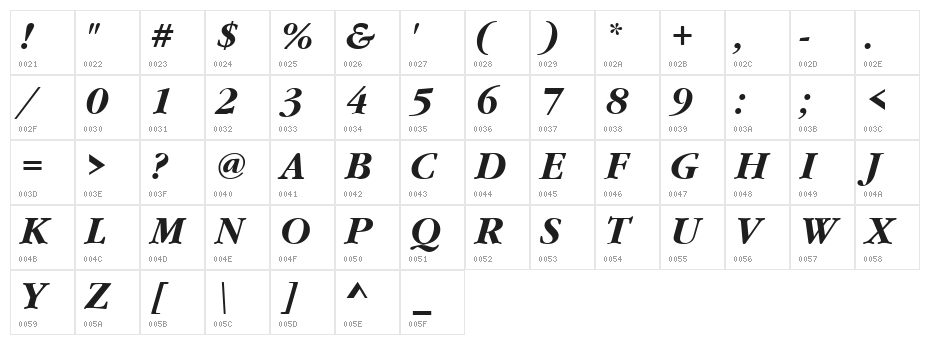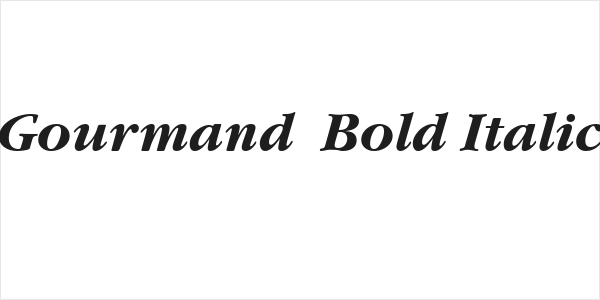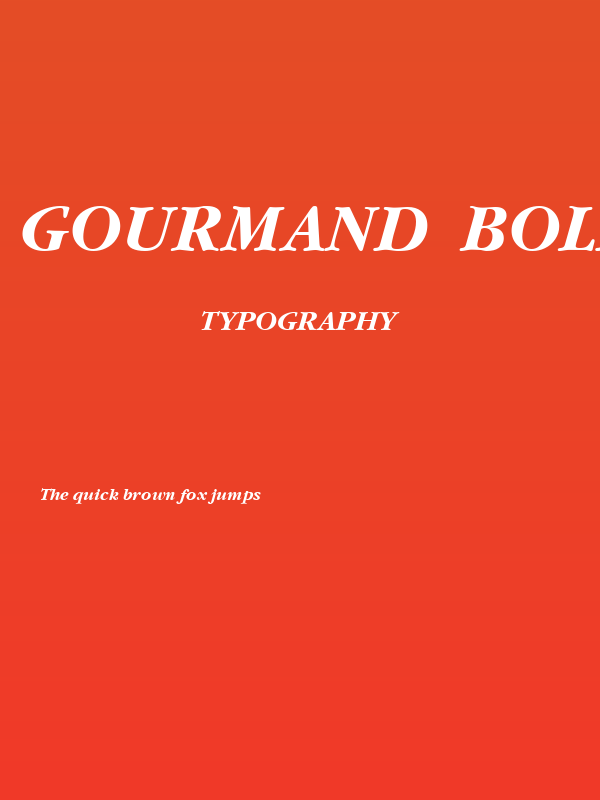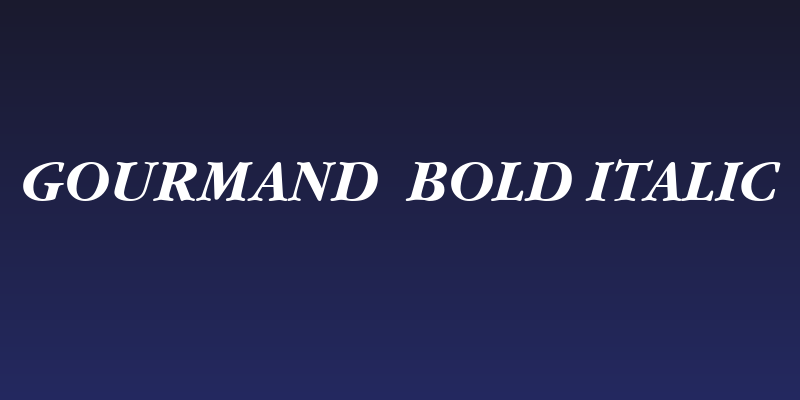
Gourmand Bold Italic Font
Gourmand Bold Italic Description
This font exhibits a sophisticated and elegant style, characterized by its bold and italicized form. The letters are well-defined with a slight slant, giving them a dynamic and fluid appearance. The strokes are thick and consistent, providing a strong presence on the page. The serif elements add a touch of classic refinement, while the italicization introduces a sense of movement and grace. The numerals and special characters maintain the same bold and italicized characteristics, ensuring uniformity across all glyphs. This font is ideal for making a statement, combining traditional serif elements with a modern twist.